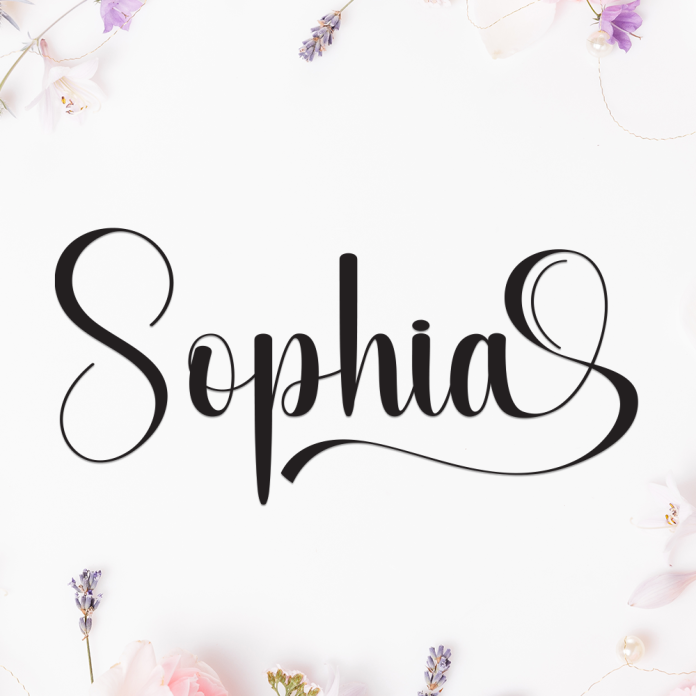
Sophia is a graceful handwriting font that blends elegance with a soft, personal touch. With its flowing curves and delicate strokes, this font is perfect for designs that require a sophisticated yet approachable look.
Ideal for wedding invitations, beauty branding, personal logos, quotes, and stationery, Sophia brings charm and refinement to every project.
Elegant and stylish handwritten script
Smooth, feminine letterforms with a modern flow
Perfect for weddings, personal branding, social media, and more
Write with beauty and confidence using Sophia, the handwriting font that speaks with elegance and grace.